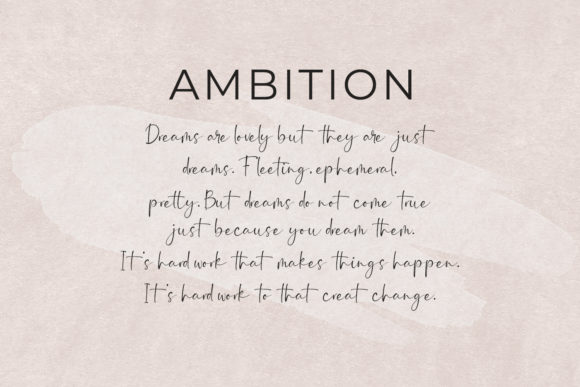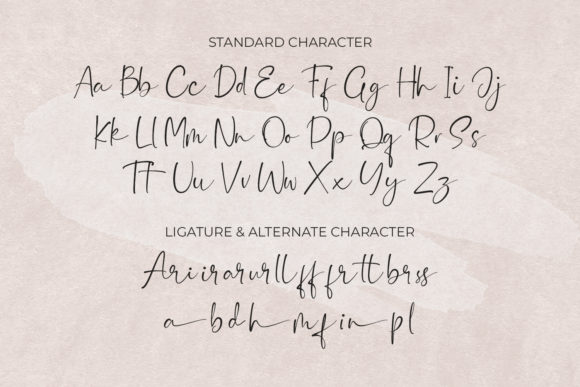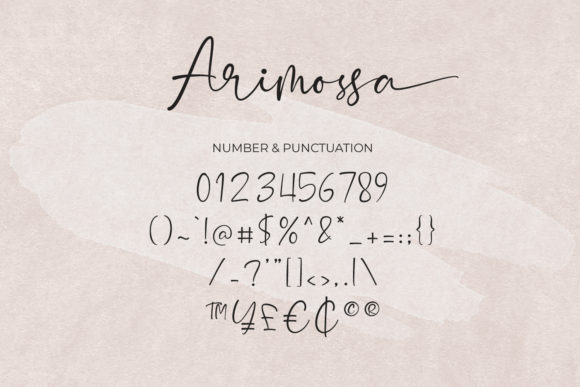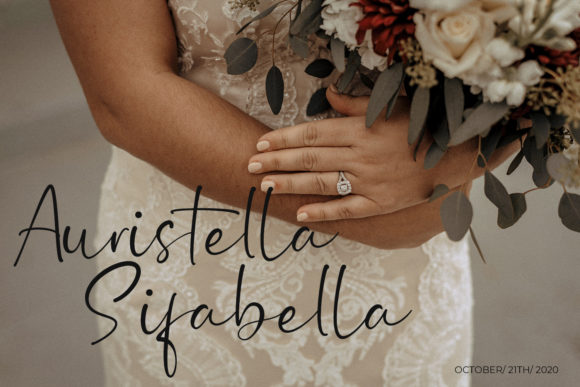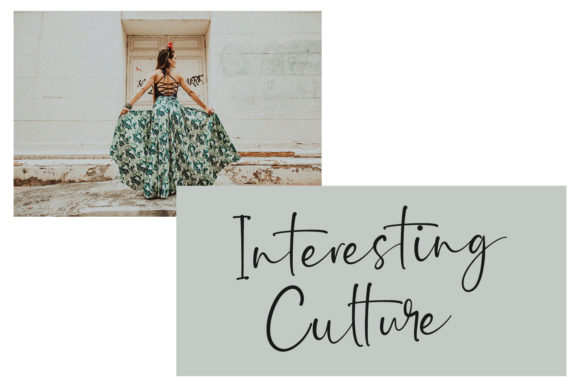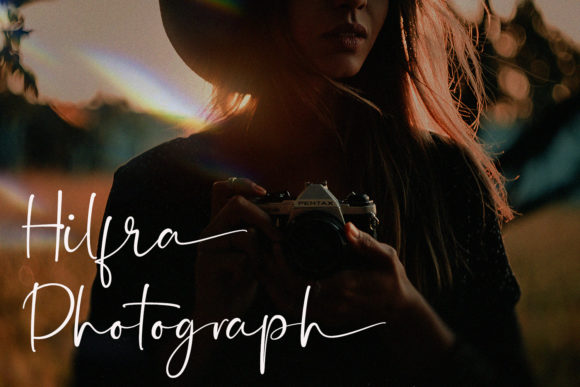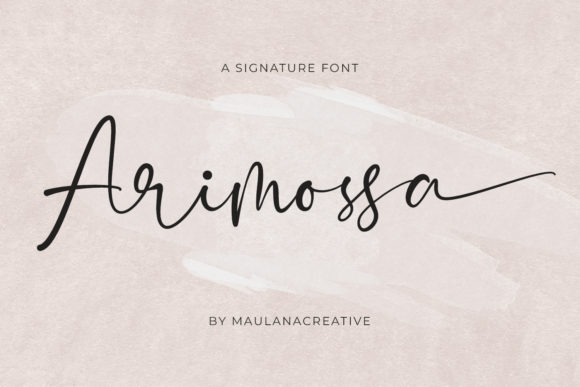
Introducing Arimossa Font: Elevate Your Designs with Elegance and Sophistication
Are you a designer or crafter looking for a font that exudes elegance and sophistication? Look no further than Arimossa Font. This beautiful, handwritten font is perfect for adding a touch of refinement to your designs, making it ideal for wedding invitations, thank you cards, quotes, greeting cards, logos, business cards, and more.
The Characteristics of Arimossa Font
Arimossa Font is characterized by its incredible elegance and flowing lines. The font features a varying baseline, which gives it a unique and organic feel. The smooth lines and gorgeous glyphs add to its beauty, making it a stunning addition to any design. Additionally, Arimossa Font comes with stunning alternates, allowing you to add more variety and creativity to your work.
Wedding invitations, thank you cards, and other event-related designs require a font that is both elegant and sophisticated. Arimossa Font fits the bill perfectly. Its beautiful, flowing lines and classic feel make it an ideal choice for wedding designs, baby shower invitations, and other special occasions. The font’s varying baseline and smooth lines also give it a romantic and whimsical feel, perfect for capturing the magic of these special events.
Enhance Your Brand with Arimossa Font
Arimossa Font is not just limited to event designs; it’s also perfect for creating stunning logos and business cards. The font’s elegant and sophisticated feel makes it an excellent choice for brands that want to convey a sense of refinement and luxury. Whether you’re a small business owner or a large corporation, Arimossa Font can help elevate your brand and make it stand out from the competition.
Why Designers and Crafters Love Arimossa Font
Designers and crafters love Arimossa Font for its versatility and beauty. The font is easy to use and can be applied to a wide range of designs, from digital projects to print materials. The font’s smooth lines and gorgeous glyphs also make it perfect for creating stunning quotes, greeting cards, and other inspirational designs. Additionally, Arimossa Font’s stunning alternates allow designers to experiment with different styles and create unique and eye-catching designs.
Tips for Using Arimossa Font
To get the most out of Arimossa Font, here are a few tips to keep in mind:
- Use Arimossa Font for headlines and titles to add a touch of elegance and sophistication to your designs.
- Experiment with different alternates to create unique and eye-catching designs.
- Pair Arimossa Font with other fonts to create a stunning contrast and add visual interest to your designs.
- Use Arimossa Font for digital projects, such as social media graphics and website headers, to add a touch of refinement and luxury.
Arimossa Font is a beautiful, handwritten font that is perfect for designers and crafters looking to add a touch of elegance and sophistication to their designs. With its varying baseline, smooth lines, gorgeous glyphs, and stunning alternates, Arimossa Font is ideal for wedding invitations, thank you cards, quotes, greeting cards, logos, business cards, and more. Whether you’re a seasoned designer or a crafty DIY enthusiast, Arimossa Font is sure to become a favorite in your design arsenal.